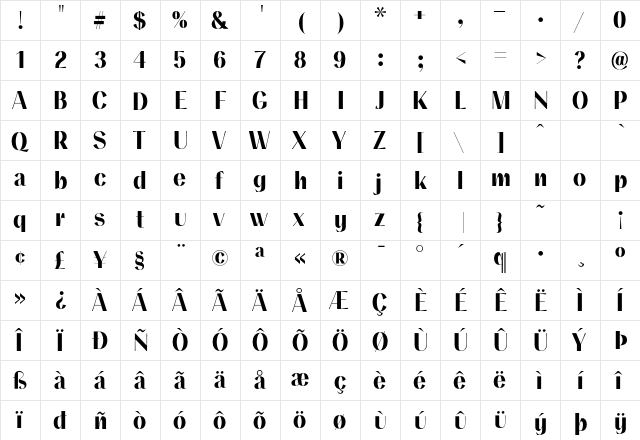
Numskill FB Bold Regular
| Foundry | The Font Bureau, Inc |
| Copyright | Copr.1991, The Font Bureau, Inc. Designer David Berlow. |
Design Context for Numskill FB Bold Typeface
Numskill FB Bold offers clean, dependable letterforms without strong stylistic allegiance, making it a practical choice for designers who need flexibility. Its bold stroke weight gives it real presence on the page.